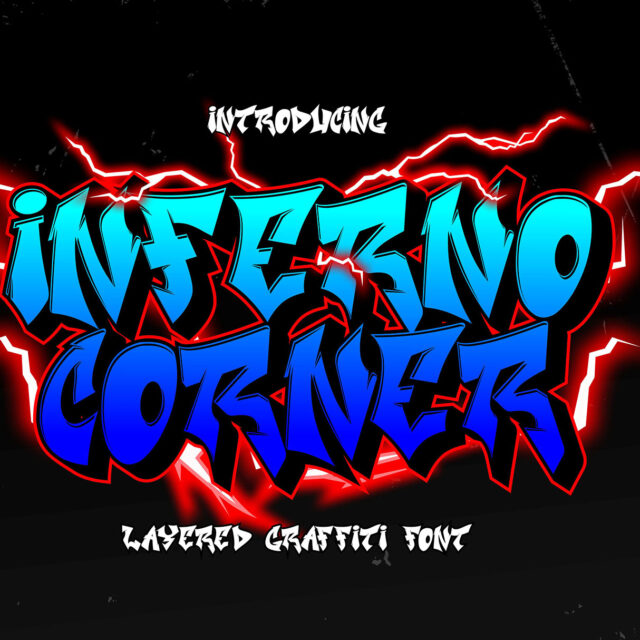
About Inferno Corner
“Inferno Corner” is a 3D layered graffiti font characterized by sharp corners. Fonts like this incorporate multiple layers to create a three-dimensional effect and emphasize angular or pointed edges, often enhancing the font’s dynamism and visual impact.
This font is particularly fitting for various street-related projects where a bold and edgy typographic style is desired. Whether used in posters, street art, or any design endeavor aimed at the urban environment, “Inferno Corner” can lend a striking and attention-grabbing aspect to your text, contributing to the overall street-style aesthetics of your project.
- Versatile for branding, headline, or printing product